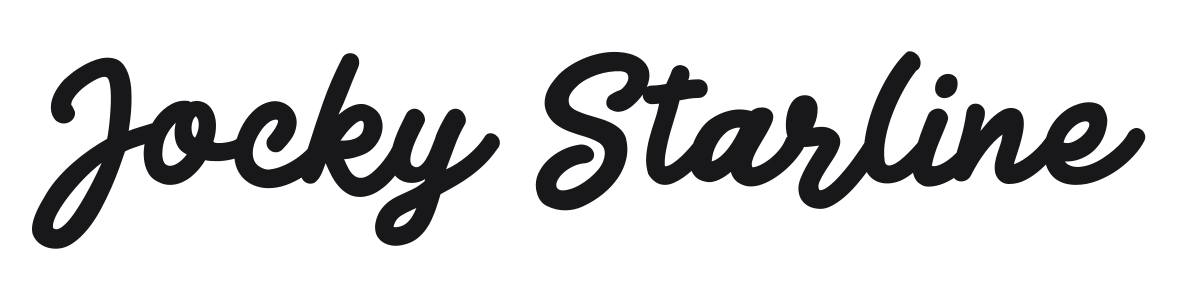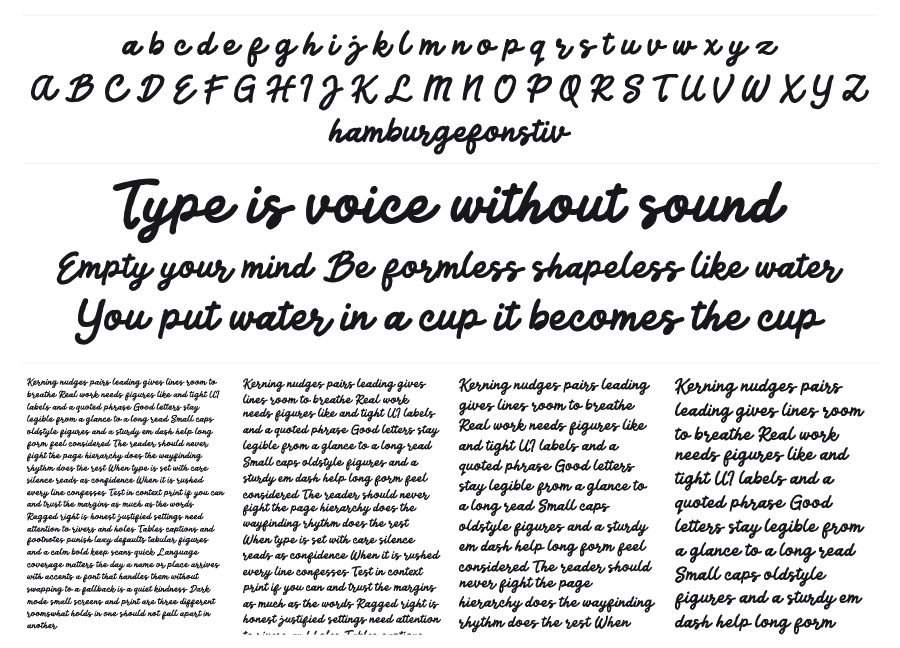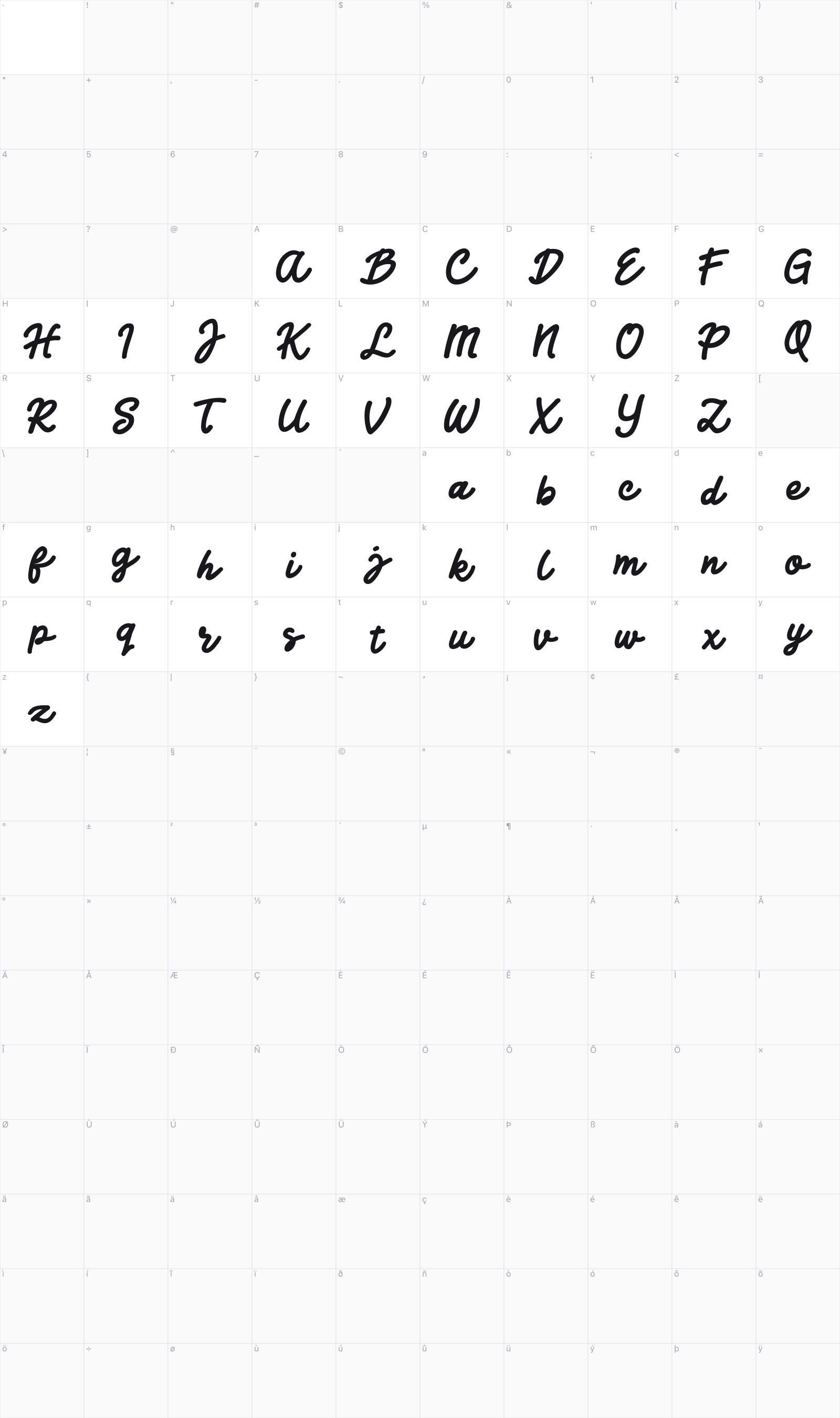
Jocky Starline
Jocky Starline is a bold connected casual script with smooth, flowing strokes and rounded terminals. Its uniform weight and continuous letter joins give it a retro American hand-lettering feel, reminiscent of vintage sports logos and diner signage. It carries energy and warmth without trying too hard.